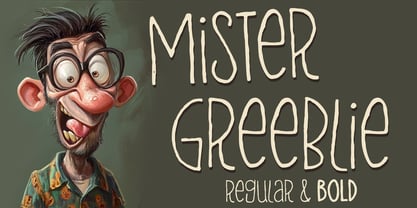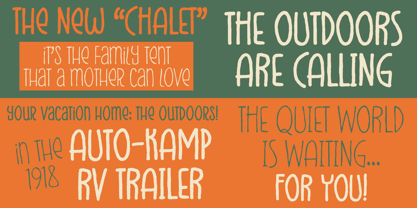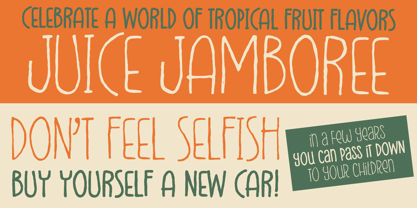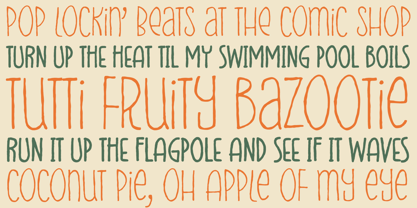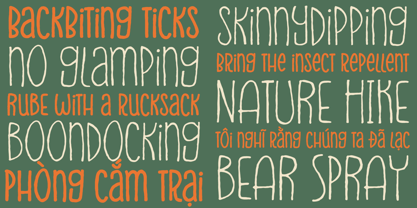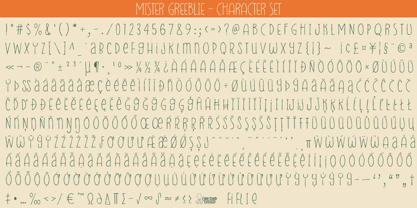
Mister Greeblie
by One Eyed Squid
The Mister Greeblie Font Family was designed by Brian J. Bonislawsky, Dave Cohen and published by One Eyed Squid. Mister Greeblie contains 2 styles and family package options. More about this family
Mister Greeblie is a wobbly, wacky display font with a weirdly wonderful personality and a grungy retro groove. Its offbeat letterforms bring playful movement, quirky character, and a slightly roughened feel to designs that want to stand out with fun, expressive style. Available in Regular and Bold weights, Mister Greeblie works well for headlines, posters, branding, packaging, greeting cards, social media graphics, and other creative projects that call for a lively, unconventional typographic voice. Includes extended Latin language support, including Vietnamese.
Designers: Brian J. Bonislawsky, Dave Cohen
Foundry: One Eyed Squid
About One Eyed Squid
Dave "Squid" Cohen & Brian "Stiggy" Bonislawsky combine their fontmaking talents to bring you an array of fun and entertaining typefaces loaded with animated and diverse retro flavor.You may know Dave Cohen's fonts from Sideshow and Neapolitan type foundries, as you may know Brian Bonislawsky's fonts from Astigmatic (AOETI), Grype, Pink Broccoli, Monogram Fonts Co., Stiggy & Sands, and VersusTwin type foundries.So what is this foundry all about? It's all about bringing collaborative skills to bear to express more of their crazy typographic ideas and create even more exciting fonts to the design community.